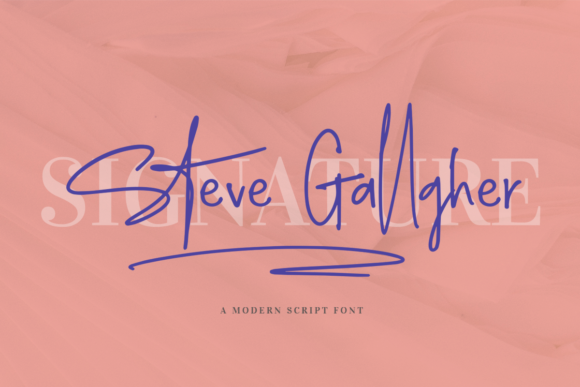
Steve Gallagher: A Playful Script for Modern Design
If you are searching for a Steve Gallagher free download, you have likely stumbled upon one of the most versatile Script Handwritten typefaces available today. This font is not just another decorative element; it brings a carefree attitude and a playful edge to any project. Whether you need a Steve Gallagher font download for a personal blog or a download Steve Gallagher font free option for a client presentation, this typeface offers a unique solution. It stands out in the crowded market of digital typography by combining natural-looking ligatures with a distinct personality that feels both professional and approachable.
Design & Style Analysis
The visual identity of Steve Gallagher is defined by its organic flow and casual elegance. Unlike rigid serif fonts or overly polished sans-serifs, this premium Script Handwritten font mimics the imperfections of real handwriting without sacrificing legibility. The letterforms possess a slight slant that suggests movement, making them ideal for dynamic layouts where static text might feel boring.
Natural Letterforms and Ligatures
One of the strongest features of Steve Gallagher is its extensive set of ligatures. These connections between letters happen naturally, creating a fluid reading experience that avoids the choppy look often found in lesser free Script Handwritten font options. When you examine the details, the strokes vary in thickness, adding weight and emphasis exactly where a human hand would apply pressure.
Weight and Spacing
The spacing within the Steve Gallagher font is generous enough to prevent characters from clashing, yet tight enough to maintain a cohesive block of text. This balance makes it an excellent choice for best Script Handwritten fonts for use case scenarios involving headlines or short paragraphs. The overall weight is medium, ensuring it remains visible even when scaled down for smaller applications like social media graphics.
Best Uses for Steve Gallagher
While many designers struggle to find a professional Fonts font that balances style with utility, Steve Gallagher excels across multiple industries. Its adaptability allows it to serve as a primary display type or a subtle accent depending on the context.
Steve Gallagher for Logo Design
Creating a memorable brand identity requires a touch of uniqueness. Using Steve Gallagher for logo design can instantly inject a sense of creativity and personal connection into a business mark. The playful nature of the script helps brands stand out in competitive markets, particularly those targeting younger demographics or creative industries.
Steve Gallagher for Branding
Consistency is key in branding, and this Steve Gallagher commercial use compatible font ensures your message remains clear. From business cards to website headers, applying Steve Gallagher for branding creates a unified voice that feels authentic. It bridges the gap between corporate professionalism and artistic flair, making it perfect for startups and established companies alike.
Steve Gallagher for Wedding Invitations
For events requiring a touch of romance and formality, Steve Gallagher for wedding invitations/cards/typography is a top-tier choice. The elegant curves of the letters evoke a sense of celebration and intimacy. Couples often prefer this Script Handwritten style over traditional calligraphy because it retains readability while maintaining a high-end aesthetic.
Steve Gallagher for Posters and Packaging
When designing promotional materials, visibility is paramount. Steve Gallagher for posters/social media/packaging ensures your message grabs attention immediately. The bold character of the font works well on product labels, event flyers, and Instagram stories, where space is limited but impact must be high.
Font Pairing & Combinations
Selecting the right companion typeface is crucial for a balanced design. Many designers ask, "what fonts pair well with Steve Gallagher?" The answer lies in contrast. Since Steve Gallagher is a decorative script, it pairs best with clean, neutral typefaces that do not compete for attention.
For a classic look, combine it with a sturdy Serif font. This combination creates a timeless vibe suitable for editorial work or luxury branding. If you prefer a modern aesthetic, try a geometric Sans-Serif. This Steve Gallagher font pairing strategy highlights the intricate details of the script while providing a solid foundation for body text. Ultimately, the best font combinations with Steve Gallagher will always prioritize readability alongside style.
When comparing Steve Gallagher vs similar font options, pay attention to the ligature sets and character support. Some competitors lack the same level of detail in their natural-looking connections. By choosing Steve Gallagher, you are selecting a professional Fonts font that offers superior quality and versatility. Whether you are building a font pack for your agency or working on a solo project, this typeface delivers consistent results.